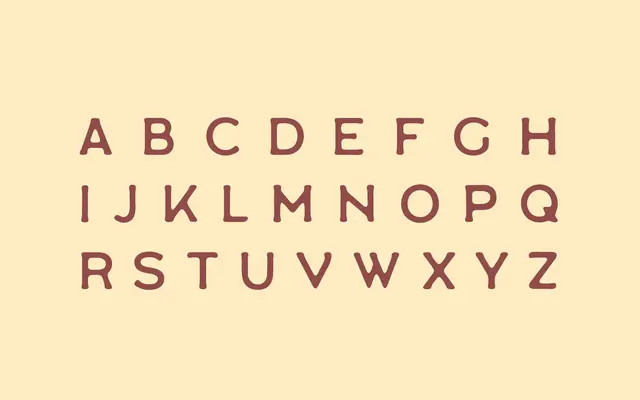
Labor Union Small
A free display typeface covering Latin and Cyrillic scripts across 85 languages, released by McLetters.
The name, demo presentation and free category suggest a bold, characterful display face rather than a workhorse text type; without further specimen detail it is classified as display sans based on the styling implied by the product line.